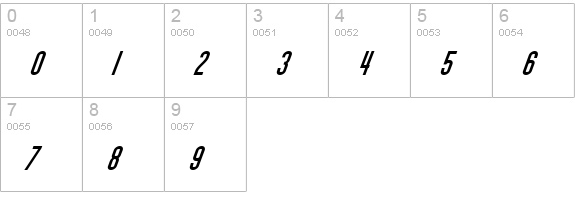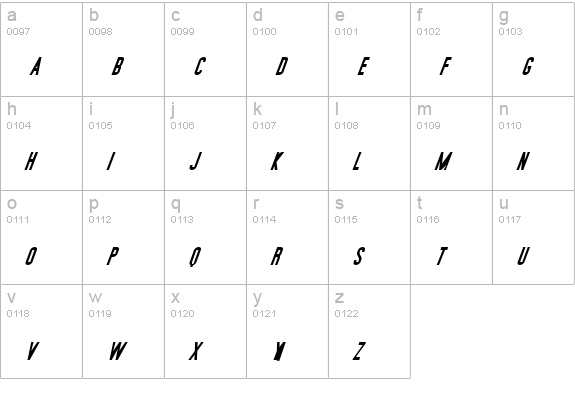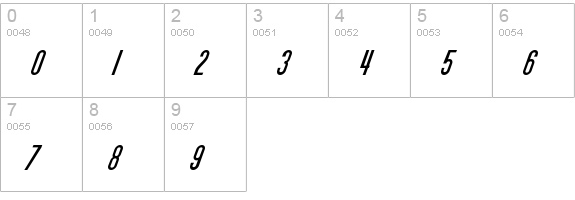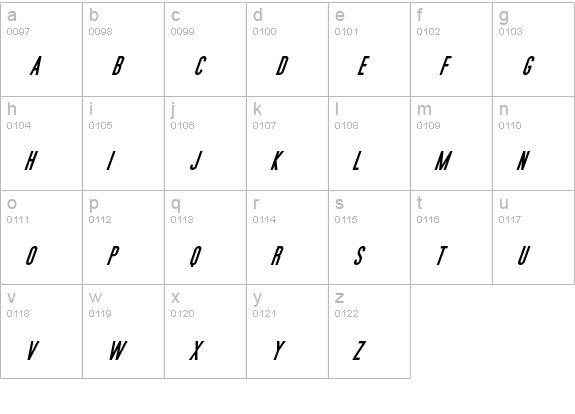
Movie Poster BoldItalic Font Details
Introducing Movie Poster BoldItalic font, a captivating and dynamic typeface that exudes an aura of drama and excitement. With its bold and italic design, this font is perfect for creating eye-catching headlines, titles, and posters that demand attention. Designed with creativity in mind, Movie Poster BoldItalic font is versatile and can be used for a wide range of projects, from movie posters to event promotions and everything in between. Its bold strokes and italic slant add a touch of flair and sophistication to any design. Best of all, Movie Poster BoldItalic font is available for free download at FontsMarket.com. Now you can unleash your creativity without any cost constraints, and bring your projects to life with this stunning and impactful font. Download Movie Poster BoldItalic font today and elevate your designs to the next level!